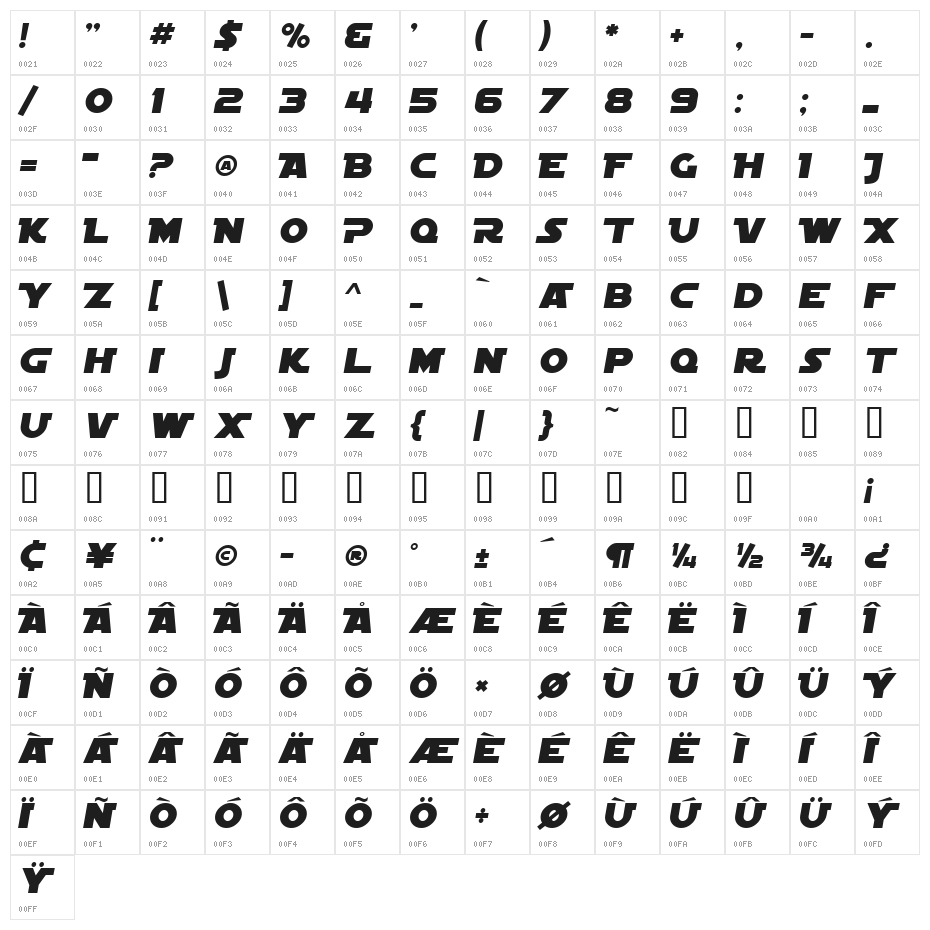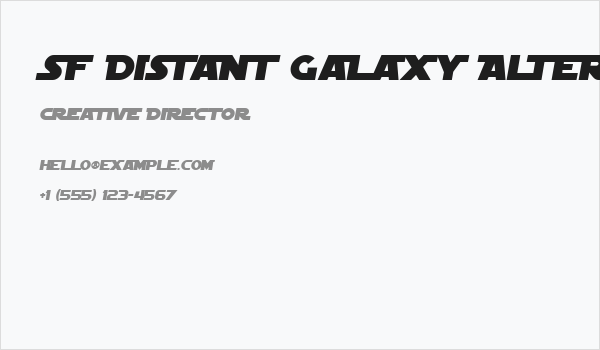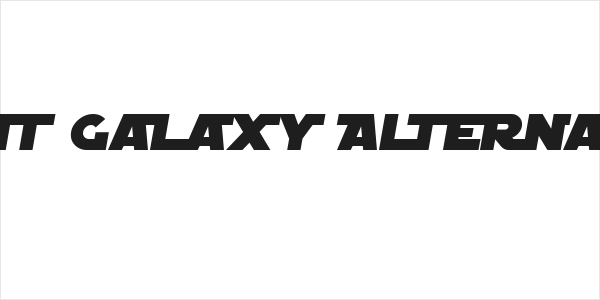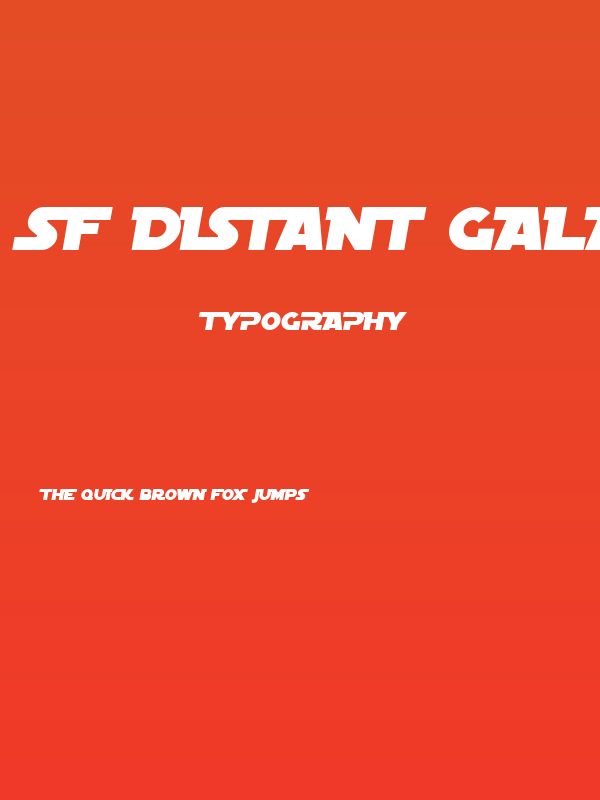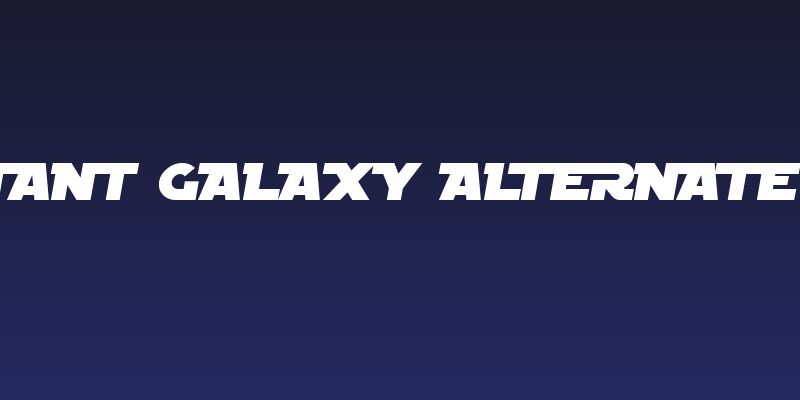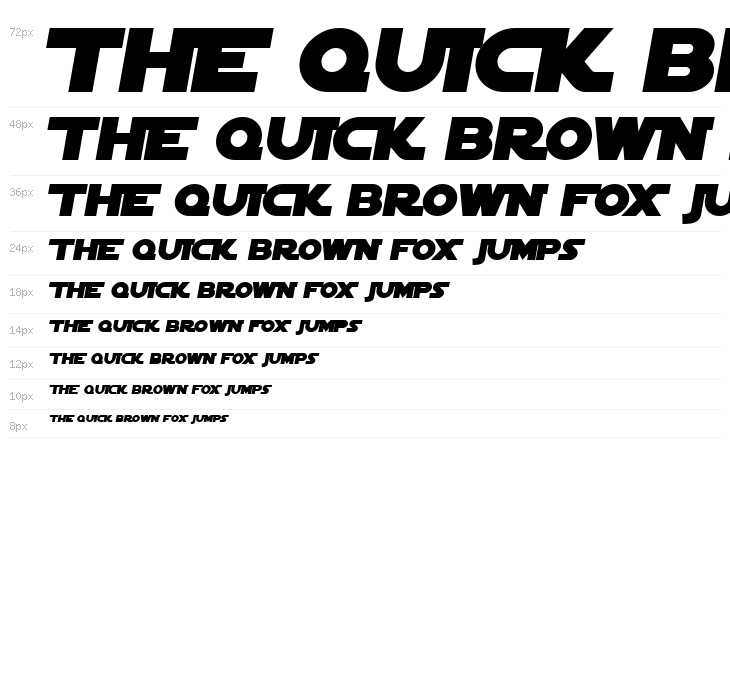
SF Distant Galaxy Alternate Italic Font
SF Distant Galaxy Alternate Italic Description
This font features a bold and futuristic design with a strong emphasis on angular and geometric shapes. The characters are italicized, giving a sense of motion and dynamism. The uppercase letters are particularly striking, with sharp edges and a slightly condensed form. The lowercase letters maintain the same angular style, ensuring consistency throughout the typeface. The numbers and special characters are designed to match the bold and futuristic aesthetic, making them suitable for a variety of creative applications. The overall appearance is modern and eye-catching, perfect for projects that require a strong visual impact.
| Proposed Projects | Ideal for sci-fi themed designs, video game graphics, movie posters, and branding for tech companies. |